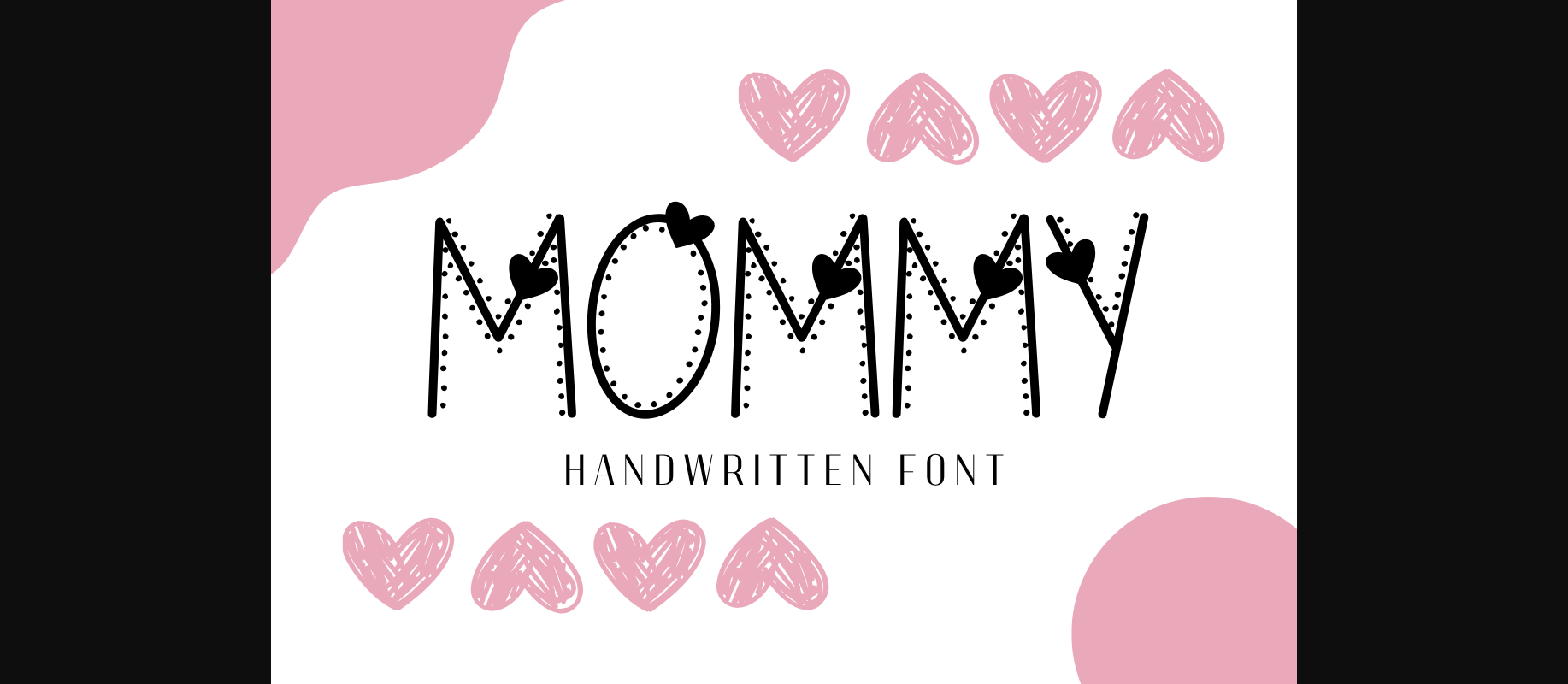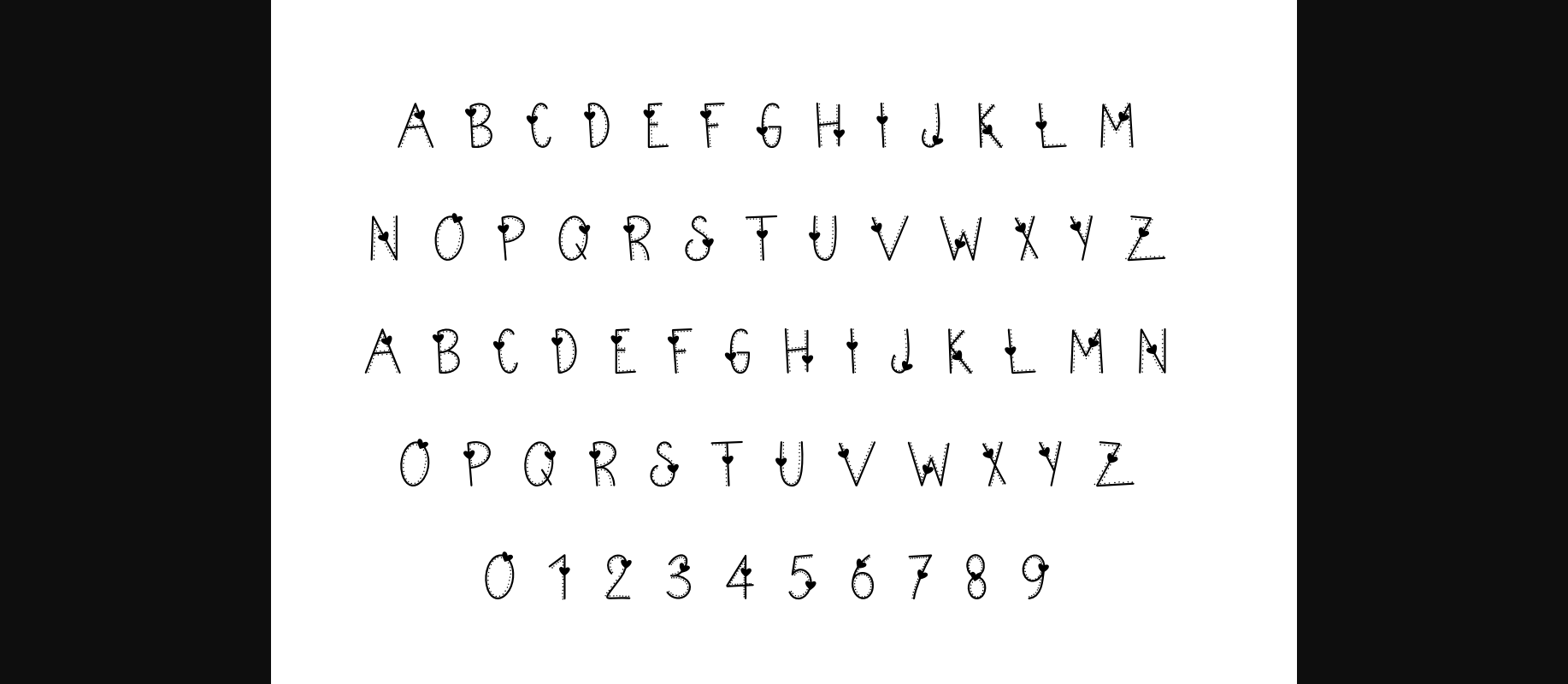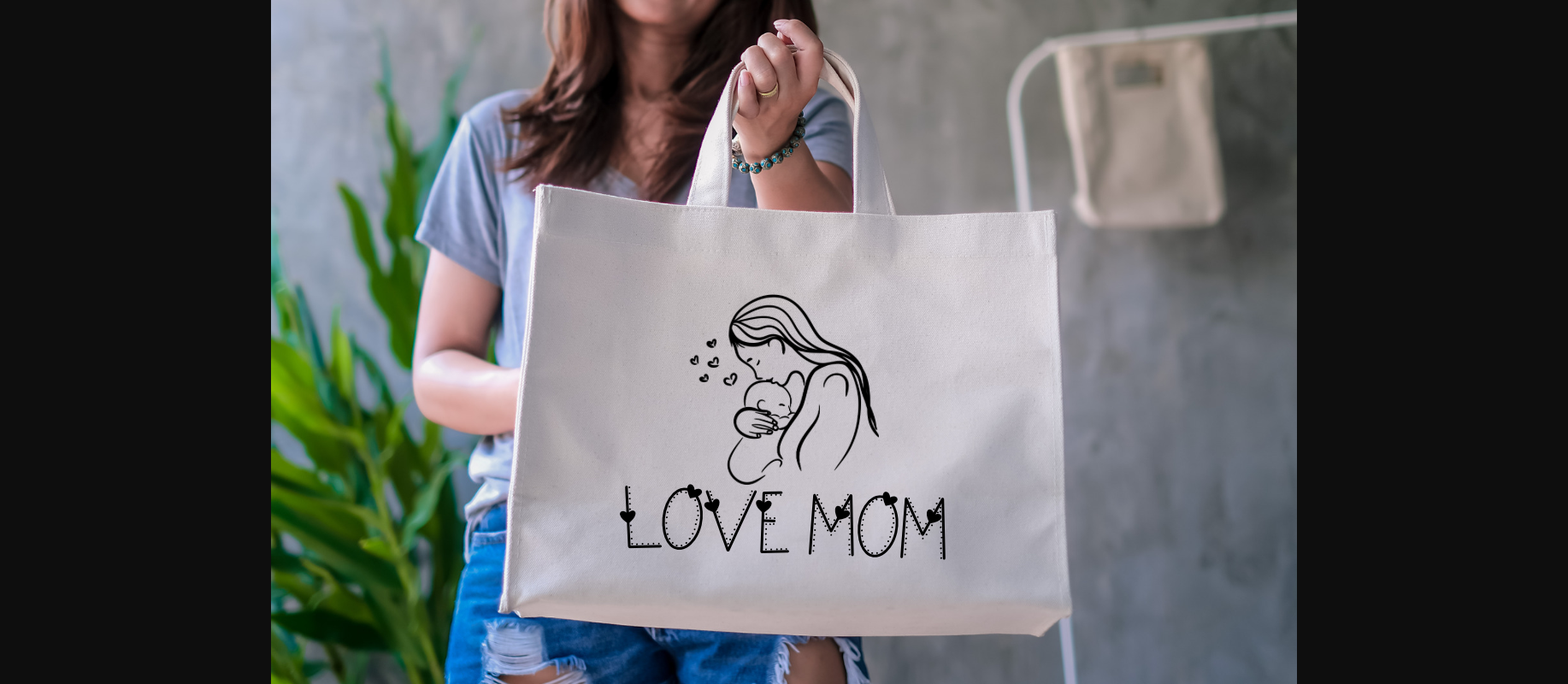
About Mommy Font
Mommy is a decorative font. You can use it for taking notes, writing a diary, or making greeting cards. However, you can still use it for other designs, such as banners, content, mugs, cards, shirts, stationery, social media posts, and more!